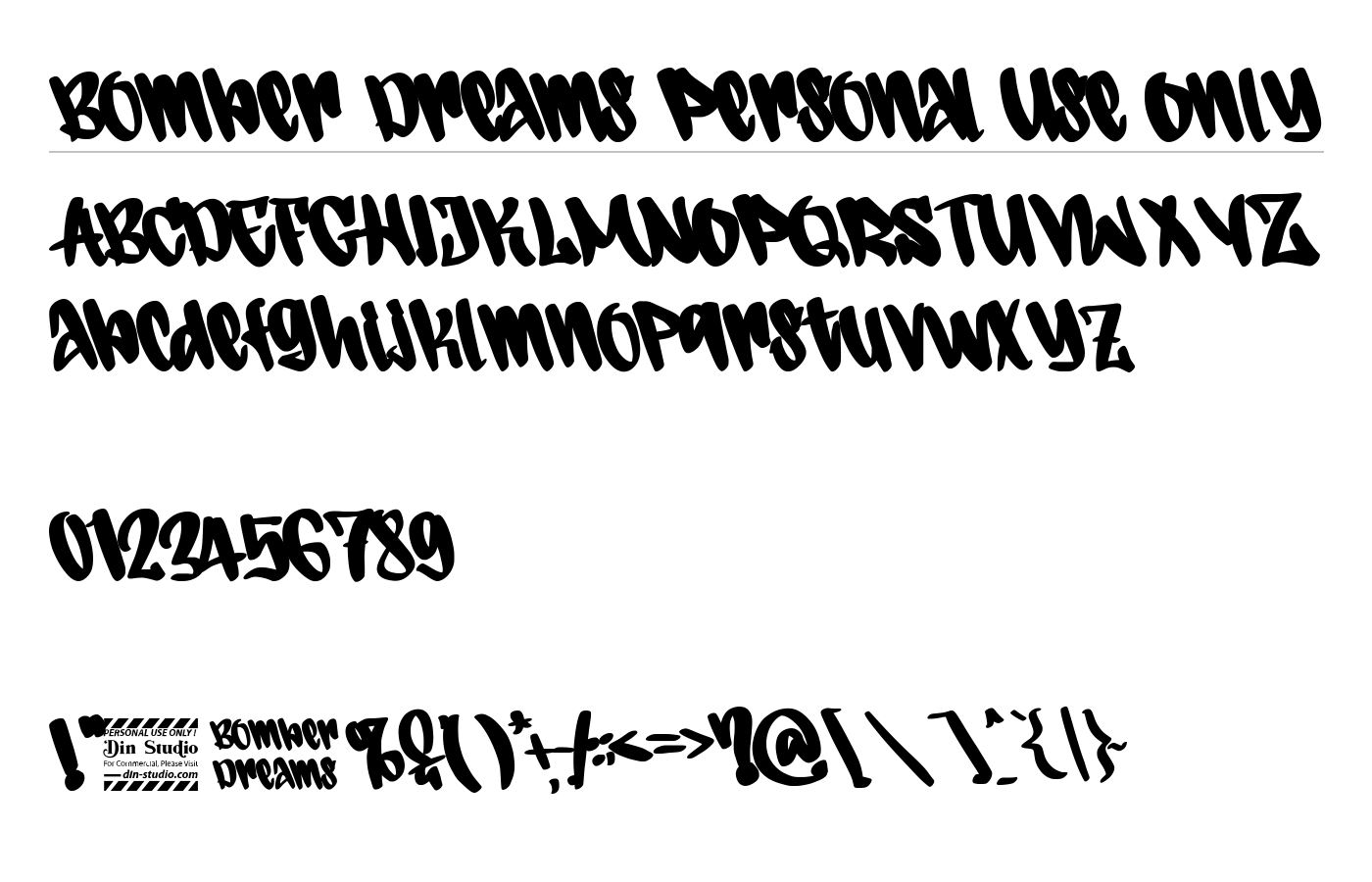
Bomber Dreams is a bold, playful handwritten font with a graffiti-inspired style that exudes energy and creativity. Its thick, irregular strokes and quirky letterforms give it an informal, street-art vibe, making it perfect for urban-themed designs, youth culture branding, and eye-catching headlines. This font works best where a fun, edgy, and dynamic personality is desired, such as posters, logos, and creative projects.
Bomber Dreams Personal Use Only Font
About Bomber Dreams Personal Use Only Font
| Font family | Bomber Dreams Personal Use Only Font |